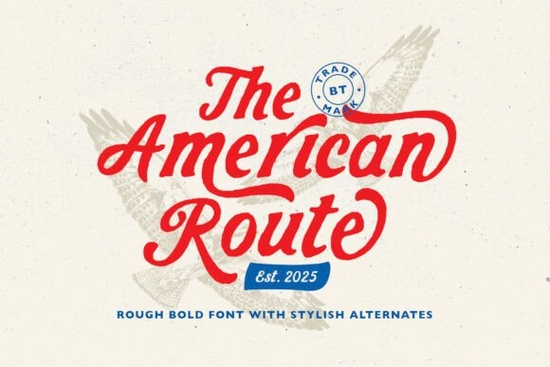
If you're looking for a bold, handcrafted script font that captures the spirit of classic American road trips, vintage signage, and rustic charm, The American Route Font fits naturally into those projects. It’s not overly polished it leans into texture, irregularity, and intentional roughness, which makes it feel authentic rather than generic. Designers working on retro logos, small-batch apparel, or Americana-themed printables often need something with character and warmth, and this font delivers without requiring heavy editing or layering.
What kind of projects does The American Route work best for?
This font shines where personality matters more than precision. Think café signs with a roadside diner vibe, limited-edition t-shirt designs for a national park series, or wedding invites with a “road trip elopement” theme. Its swashy flourishes and stylistic alternates let you mix in subtle variations like swapping out a capital “A” for one with an extra loop or adding a trailing flourish to a word ending. That kind of detail helps avoid repetition in longer text blocks, especially when used sparingly for headlines or short phrases.
It’s also well-suited for crafters using Cricut or Silhouette machines the bold weight holds up cleanly when cut from vinyl or iron-on, and the textured edges translate nicely to printed transfers. Print-on-demand sellers have told us it performs well on mugs and tote bags because the contrast and rhythm read clearly even at smaller sizes (though we recommend keeping it above 36pt for body text in most cases).
How does it compare to other popular script fonts?
Unlike smoother, more formal scripts like Miss Roderick, which leans elegant and wedding-ready, The American Route trades refinement for grit. It’s closer in energy to Lemonhoney Duo both have playful bounce but Lemonhoney feels sweeter and more modern, while American Route feels weathered and grounded. If you’ve used Detourne, you’ll notice similar confidence in stroke variation, but Detourne is more refined and European in its influence; American Route wears its U.S. heritage openly.
For designers who love Gita Lian, know that Gita Lian brings delicate, brush-like flow ideal for feminine branding or soft stationery while American Route is louder, bolder, and built for visibility. And if your work overlaps with wedding font collections, this one works best for non-traditional ceremonies: think desert elopements, vintage car processions, or barn venues with exposed beams and Edison bulbs.
One thing to keep in mind: because of its textured outlines and intentional imperfections, it’s not ideal for dense paragraphs or legal disclaimers. Stick to display use logos, posters, packaging headers, social media banners and pair it with a clean sans-serif (like Montserrat or Inter) for supporting text.
Where can you see it in action?
Many Creative Fabrica users share real examples in their project galleries look for tags like vintage logo, retro apparel, or Americana design. You’ll find mockups showing how it wraps around trucker hats, appears on enamel pins, or anchors a set of printable travel journals. For inspiration beyond the marketplace, check out real-world references like mid-century gas station signage or 1950s motel neon American Route Font echoes that visual language without copying it directly.
Other fonts with similar energy include Detourne Font, Gita Lian Font, and Lemonhoney Duo Font. Each has its own voice so if you’re building a toolkit for varied client needs, having a few options across the “hand-drawn,” “vintage,” and “playful script” categories helps you match tone faster.